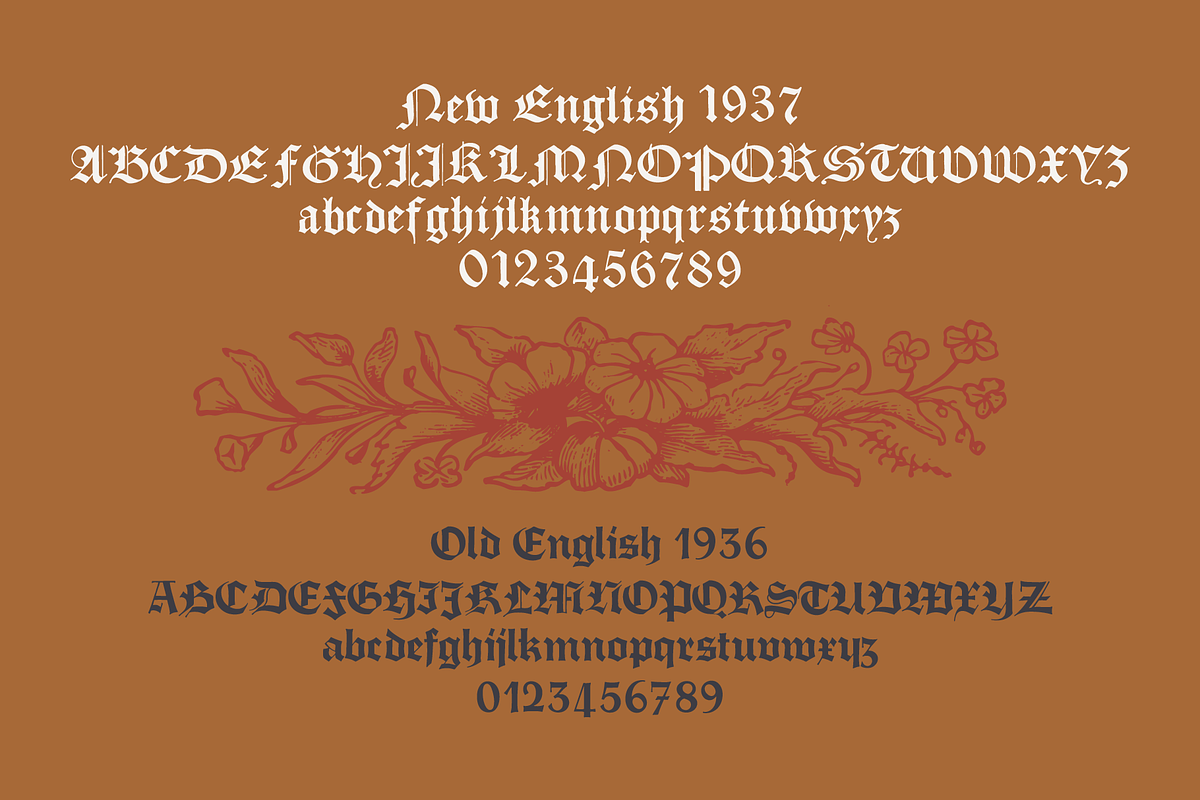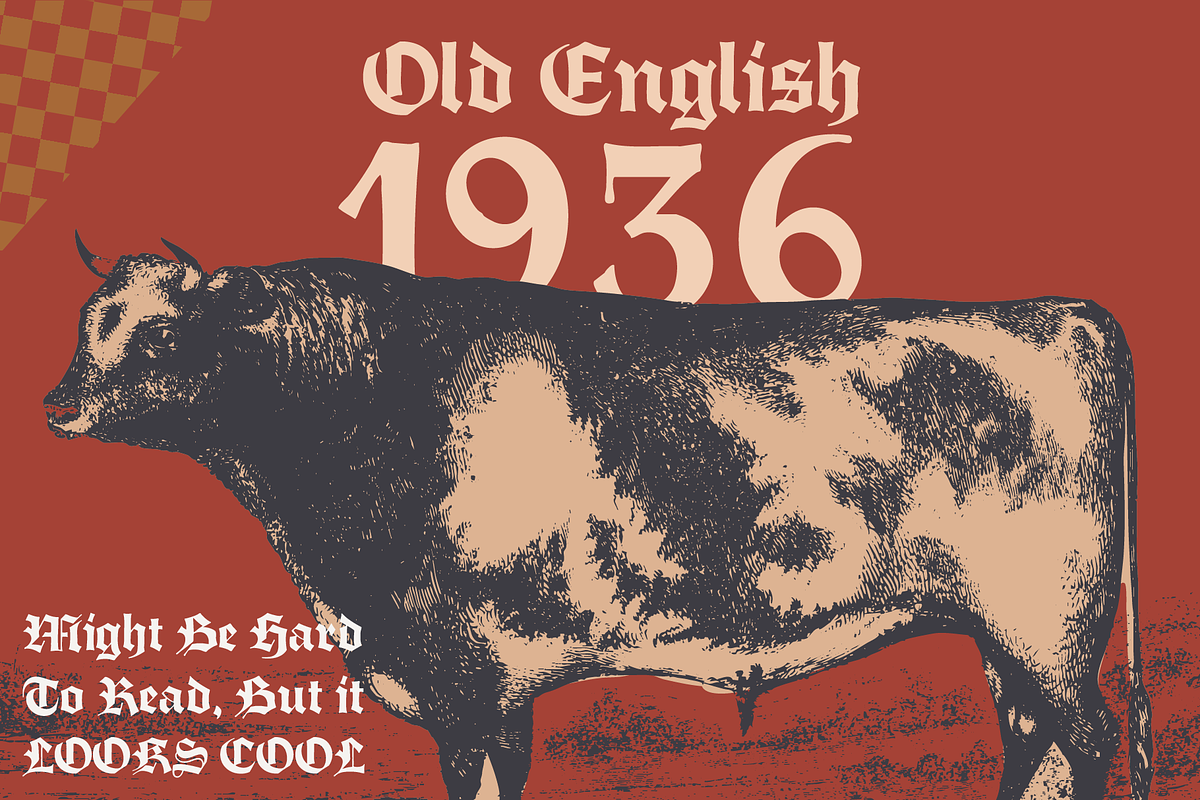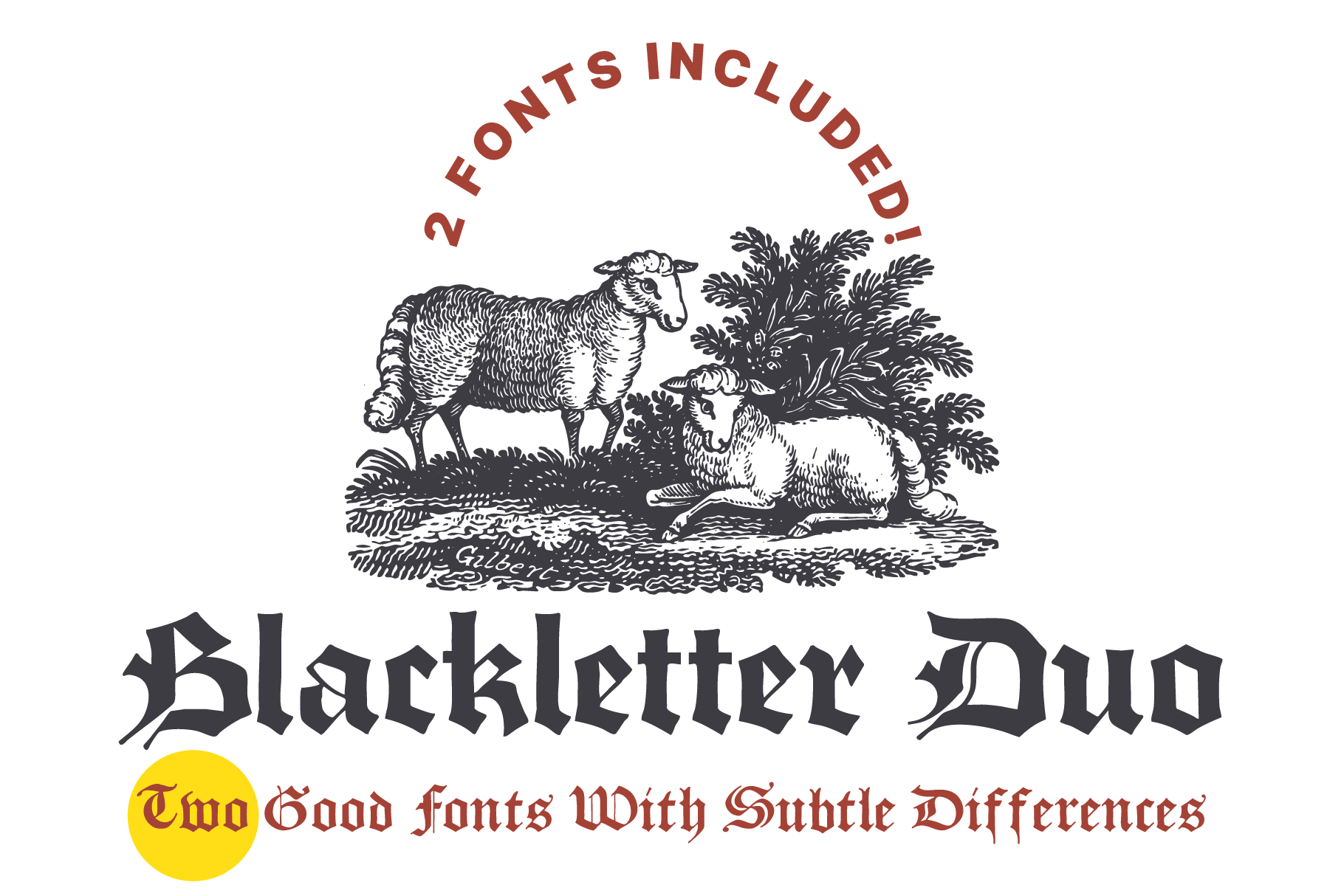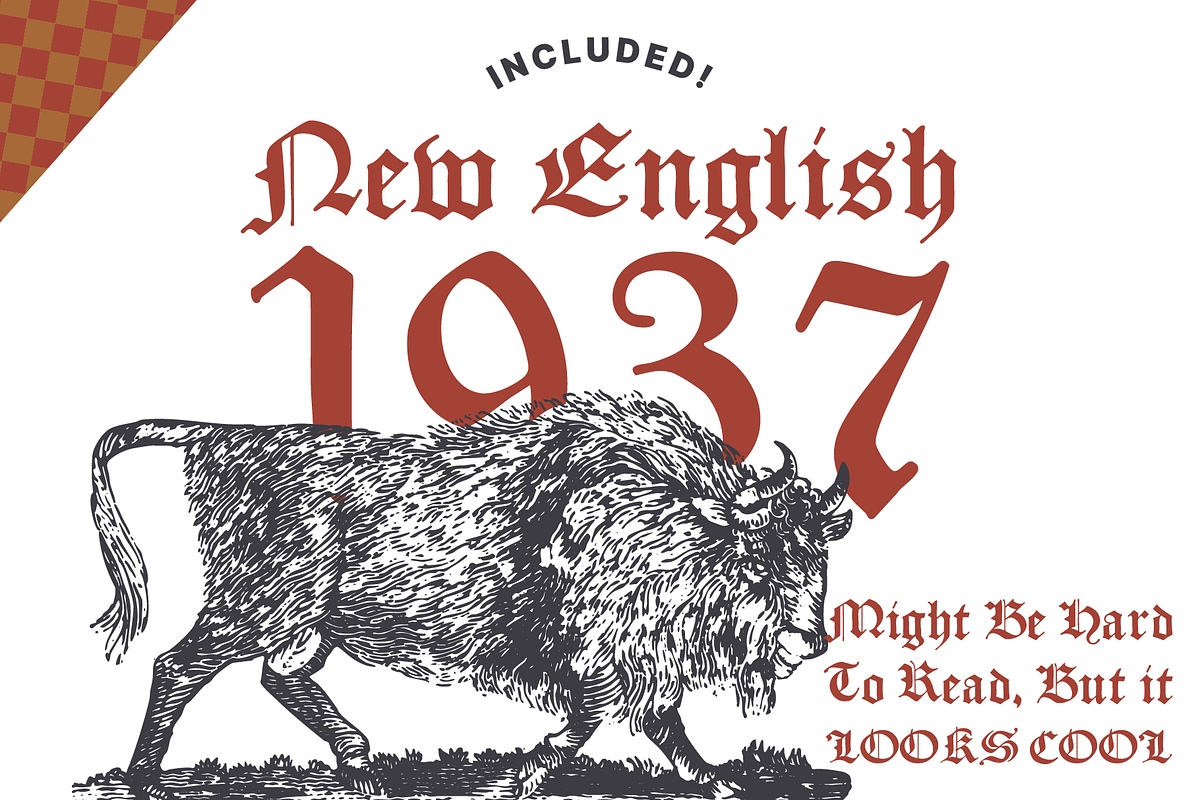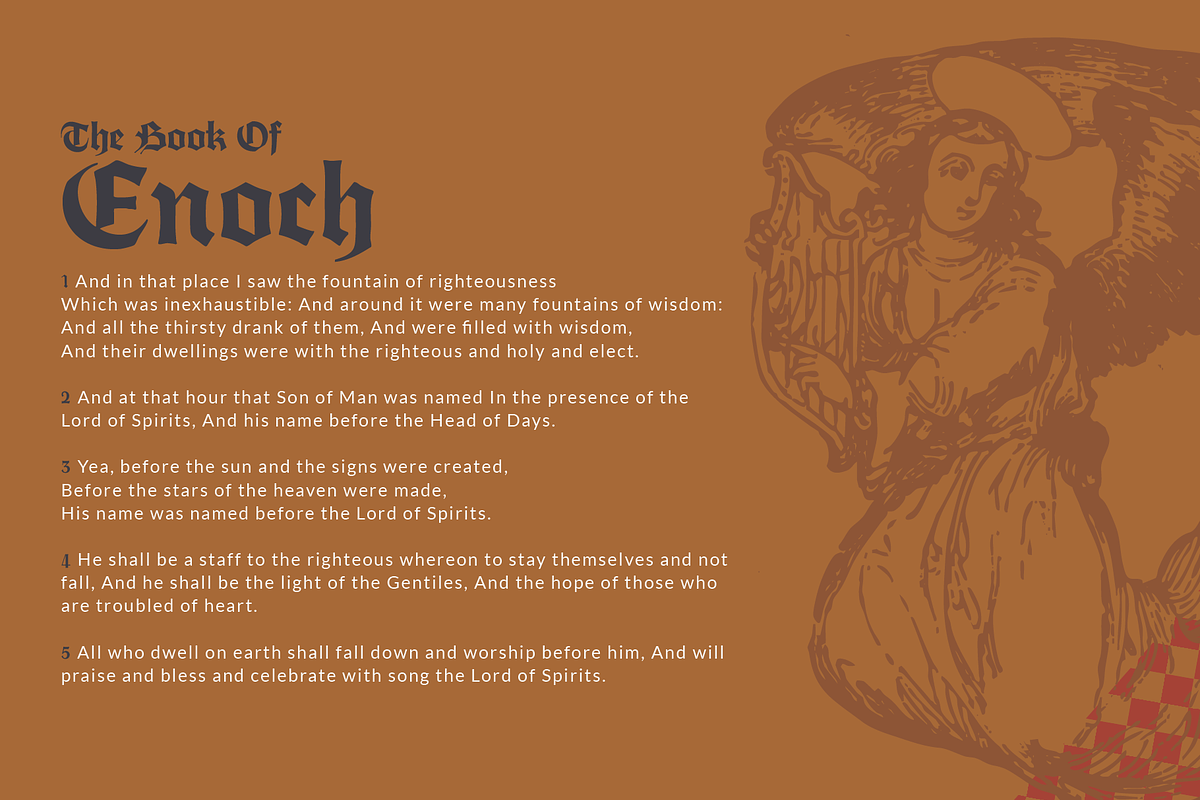
Blackletter Duo | TWO VINTAGE FONTS
TWO vintage, antique fonts from the 1930's.
While looking for a specific blackletter "look" in my old typeface books I stumbled across these two fonts - something struck me about them and I ended up using the one but not the other. BUT.... they were both scanned so I put the work in the program and name them.
These are perfect for logos, tees, clothing, patches and any place you need to add a VINTAGE or ANTIQUE or HERITAGE vibe without compromising on over-refinement.